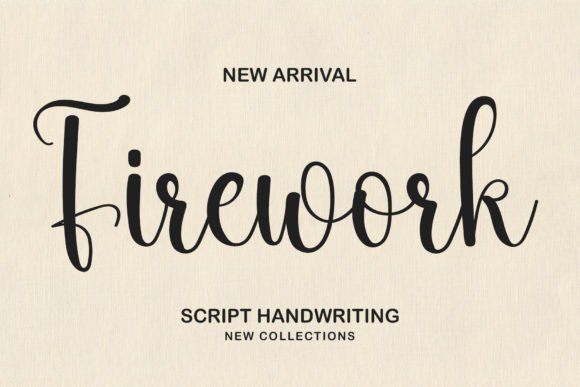
Unleash the magic of your creative expressions with Firework Font, an enchanting script font family that's the perfect spark for your festive designs!
Welcome to a world of elegance and beauty, where every letter dances like a snowflake on a crisp winter morning. Dive into the realm of Firework Font, a delicate and graceful handwritten font that promises to ignite your imagination and leave your audience captivated.
With its timeless appeal and incredibly distinct style, Firework Font is the perfect muse for crafting extraordinary designs that radiate warmth, joy, and a touch of festive cheer. Whether you're creating heartfelt Christmas cards, designing eye-catching social media posts, or adding a whimsical touch to your branding projects, Firework Font is the perfect companion for your creative journey.
Let your words take flight on the wings of Firework Font, and watch as they transform into captivating works of art. Its flowing lines and elegant curves create a visual symphony that's sure to leave a lasting impression. Experience the magic of this enchanting font and elevate your designs to new heights.
Express your creativity with the versatility of Firework Font, a font family that adapts seamlessly to a wide range of design styles. From classic to contemporary, playful to elegant, Firework Font has the charm to complement your every vision. Let your imagination run wild and explore endless possibilities, knowing that this font will effortlessly bring your ideas to life.
Created by the talented YanStudio, Firework Font is a testament to the art of typography. Its intricate details and impeccable craftsmanship are evident in every letter, ensuring that your designs exude sophistication and professionalism. Trust in the expertise of YanStudio to deliver a font that meets the highest standards of quality and aesthetics.